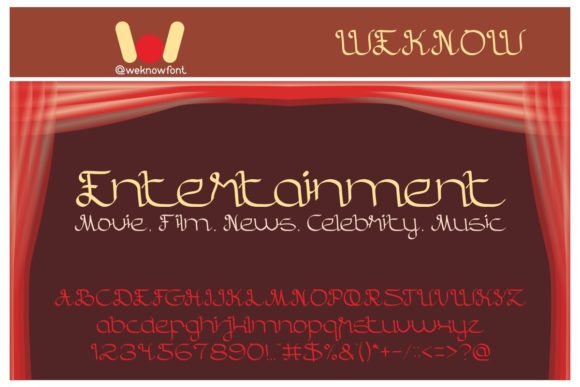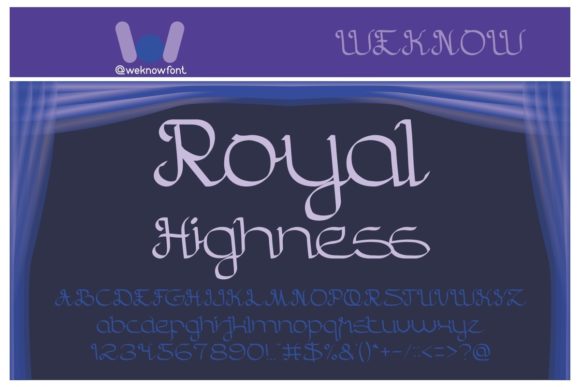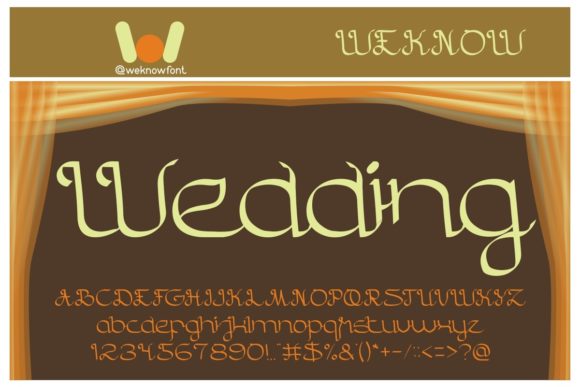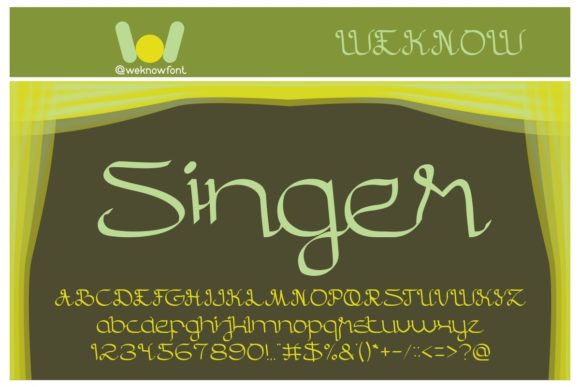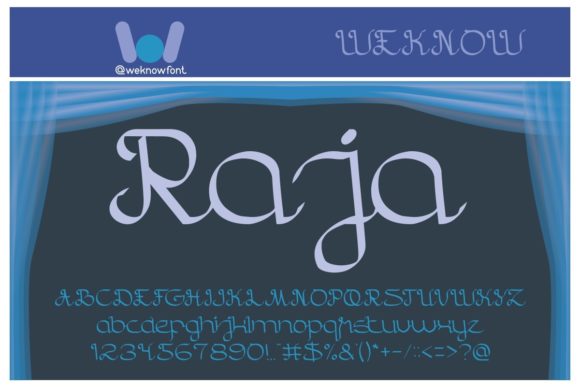
Entertainment Font
Entertainment is a chic and uniquely designed handwritten font. It works incredibly well on posters, movie titles, magazine covers and so many more ideas that require a distinct touch.